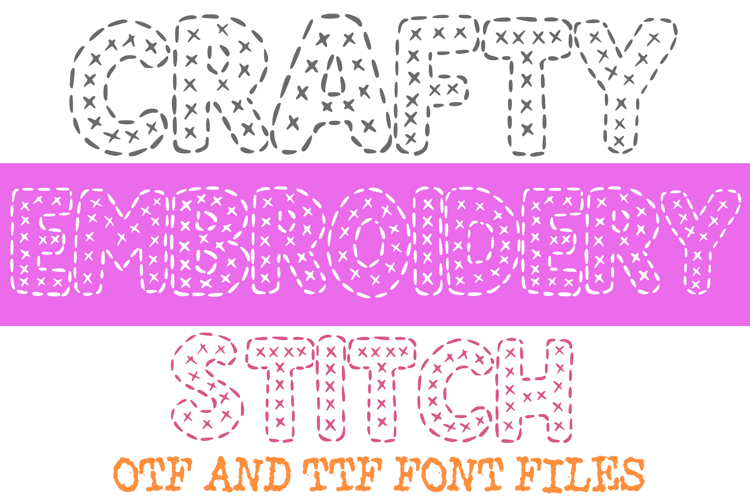
Crafty Embroidery Stitch Font is a playful and handmade display typeface inspired by sewing, embroidery, and cross-stitch patterns. Each letter is decorated with fun stitched details, making it the perfect font for craft projects, DIY designs, scrapbooking, sewing-themed posters, labels, invitations, and handmade product branding. With its creative and charming stitched style, this font adds a cosy, crafty touch to any design. Includes OTF and TTF files for easy use across all major design software.